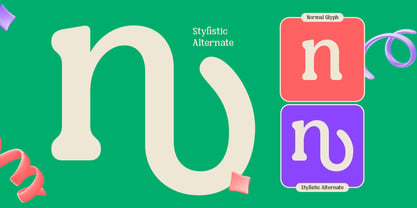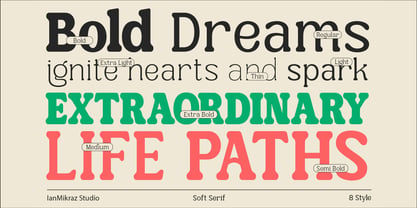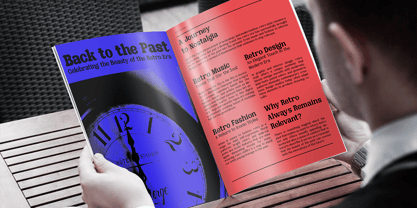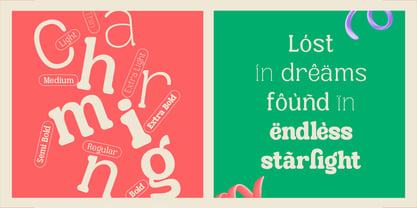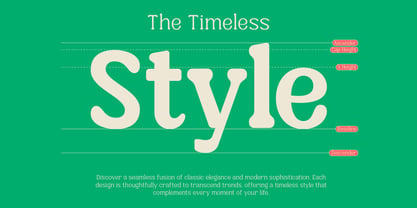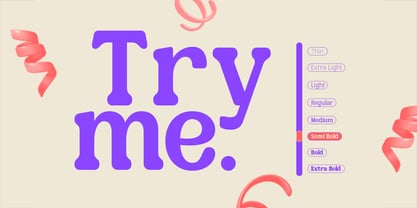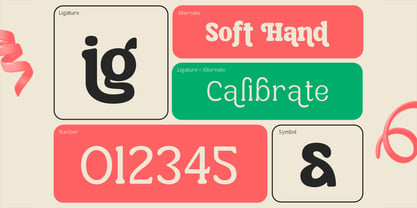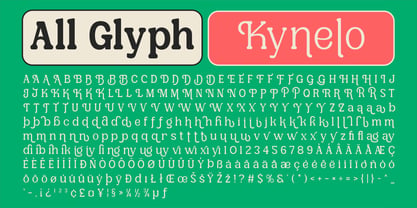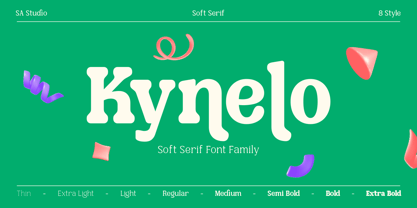
Kynelo
by IanMikraz Studio
The Kynelo Font Family was designed by Ian Mikraz and published by IanMikraz Studio. Kynelo contains 9 styles and family package options. More about this family
Kynelo is a soft serif font family that blends classic elegance with a modern, friendly character. Featuring smooth curves, gentle contrast, and distinctive rounded serifs, Kynelo feels warm, expressive, and highly readable. With 8 versatile styles from Thin to Extra Bold, it’s perfect for branding, editorial design, packaging, posters, and standout headlines that need a timeless yet playful touch.
Designers: Ian Mikraz
Foundry: IanMikraz Studio